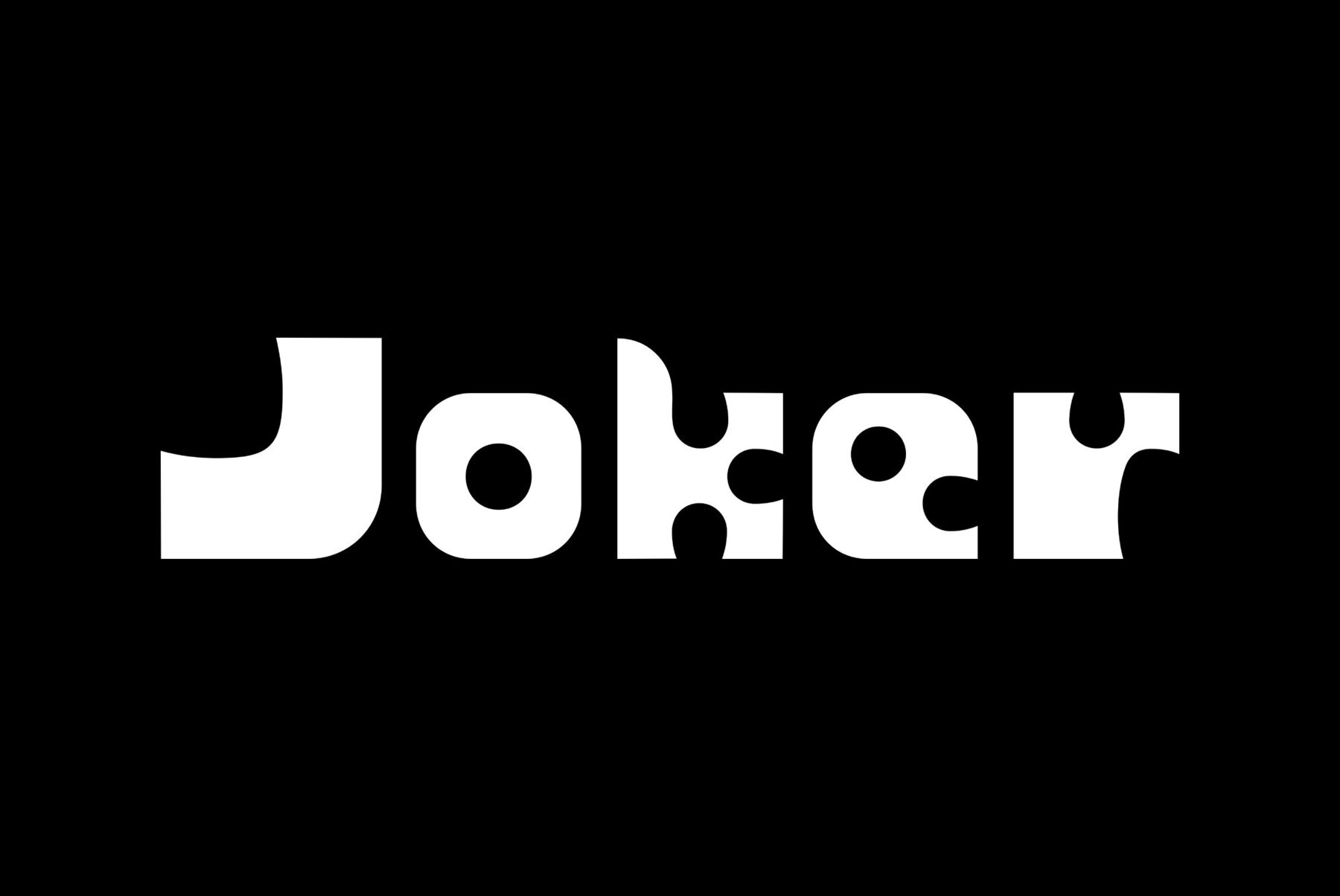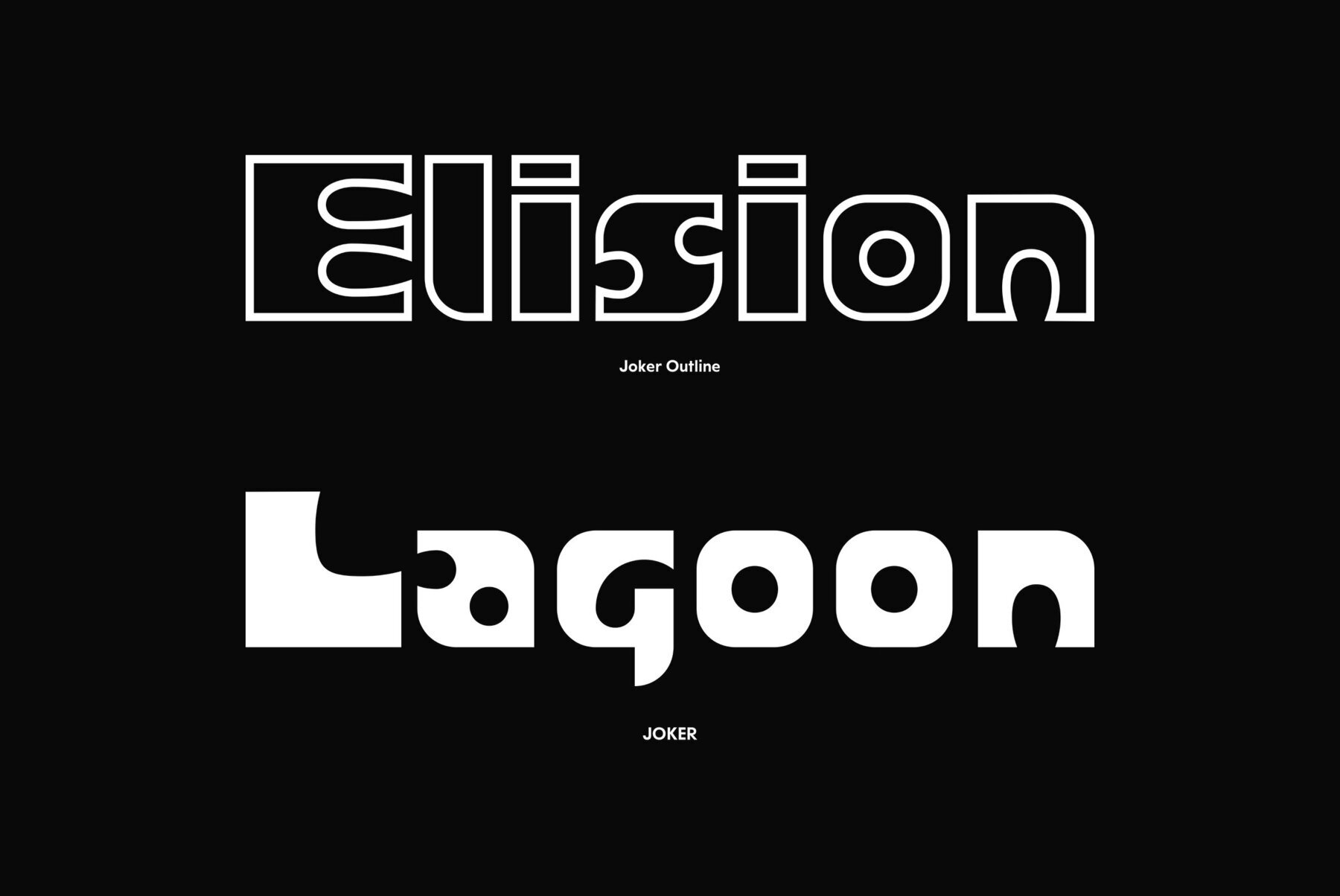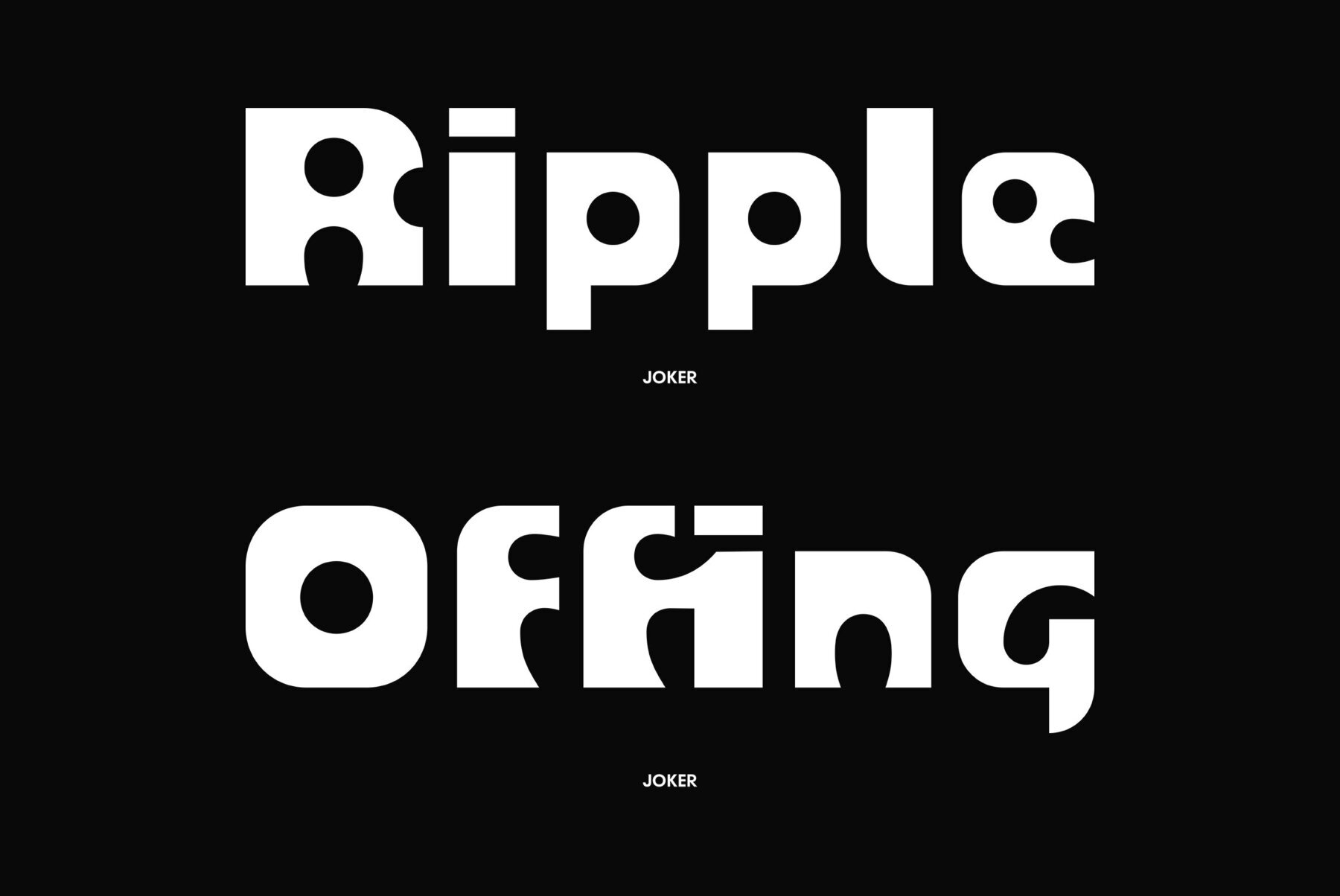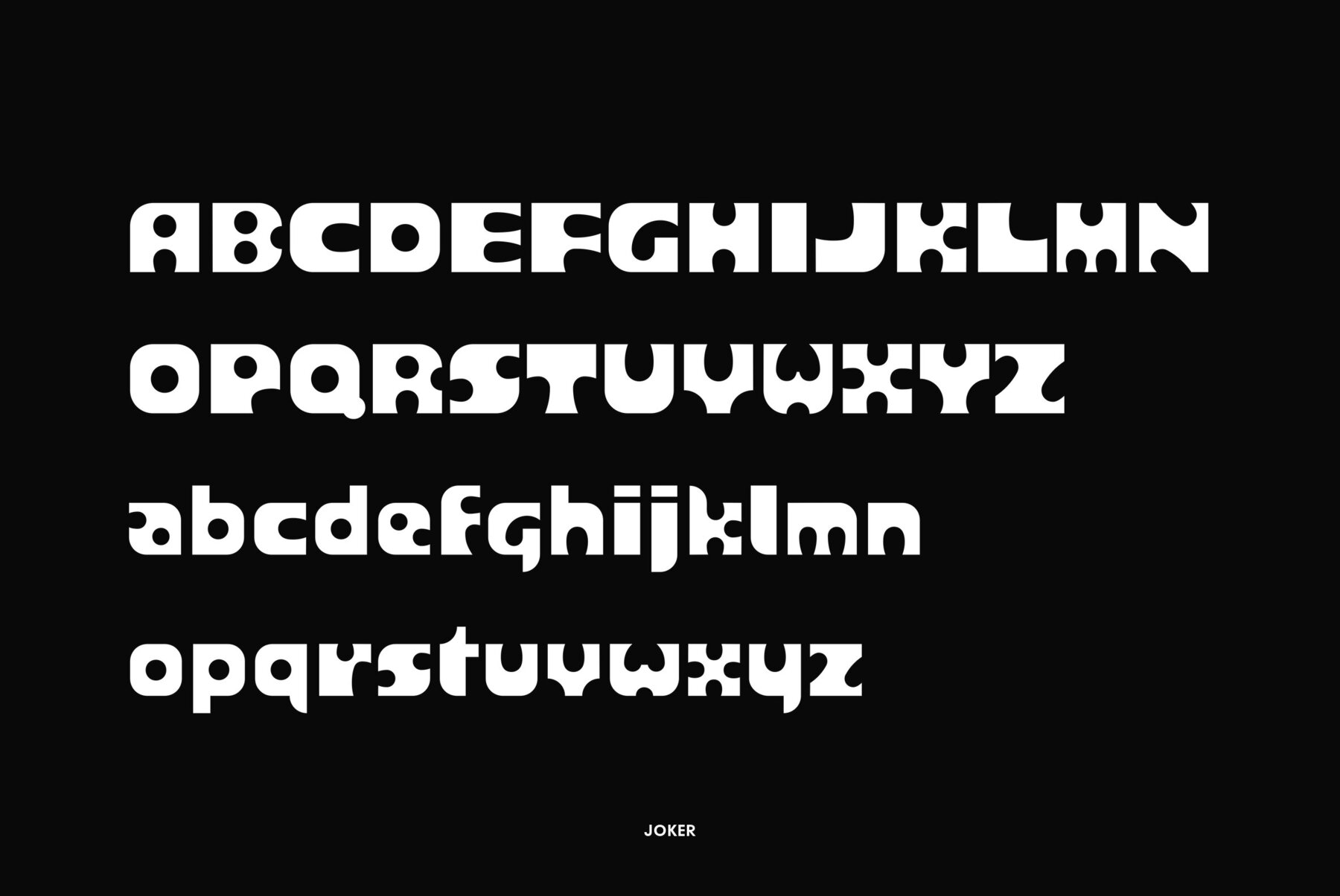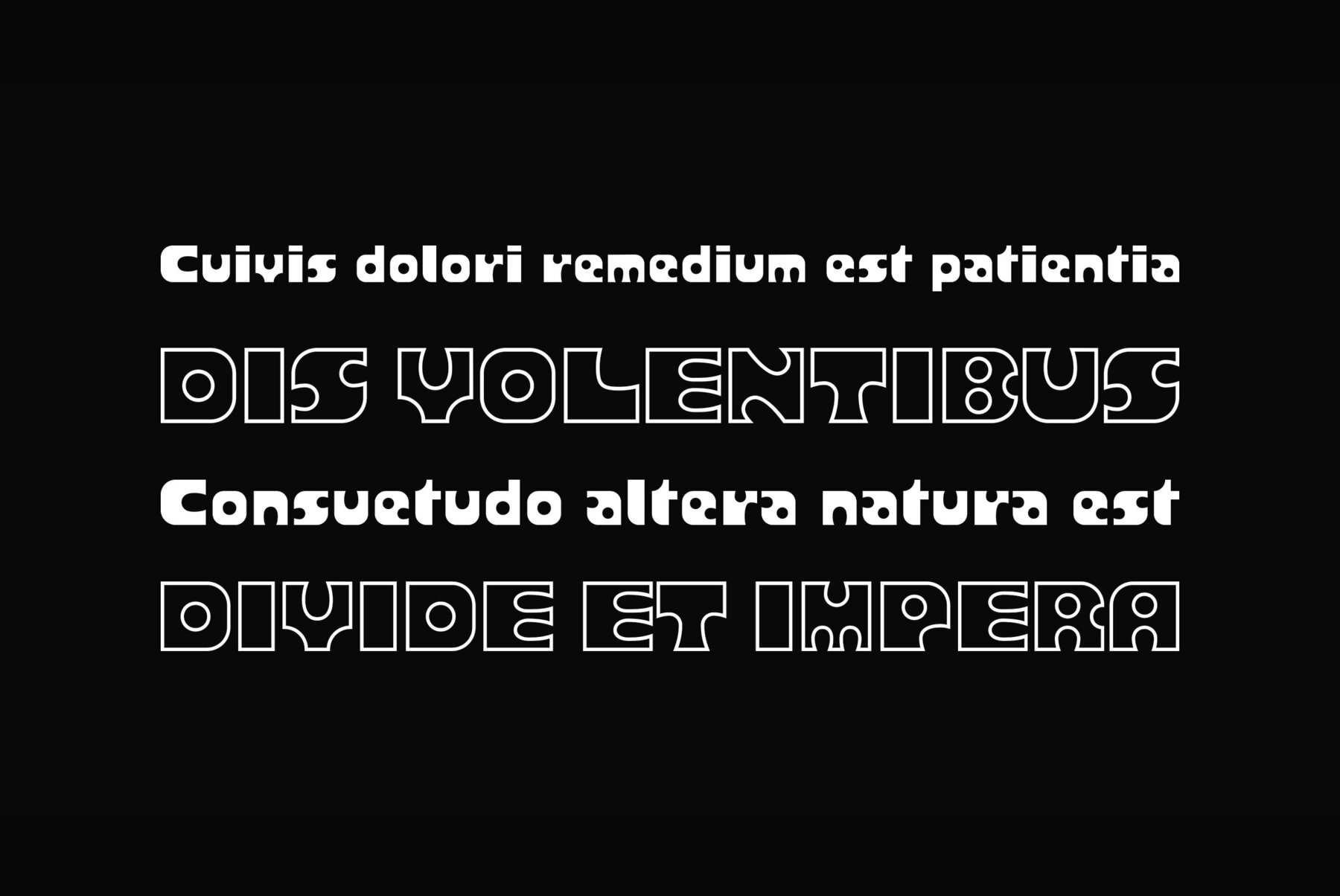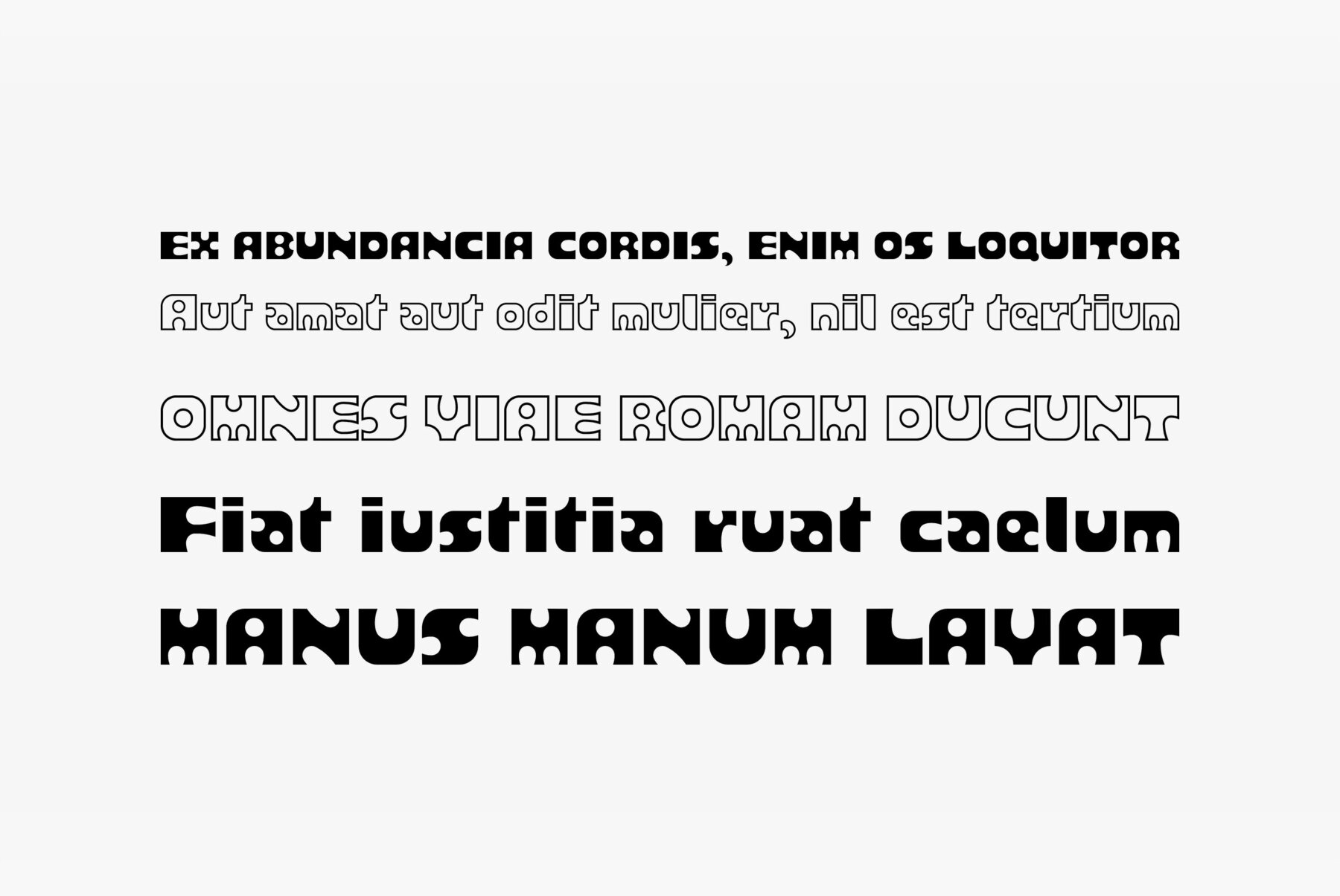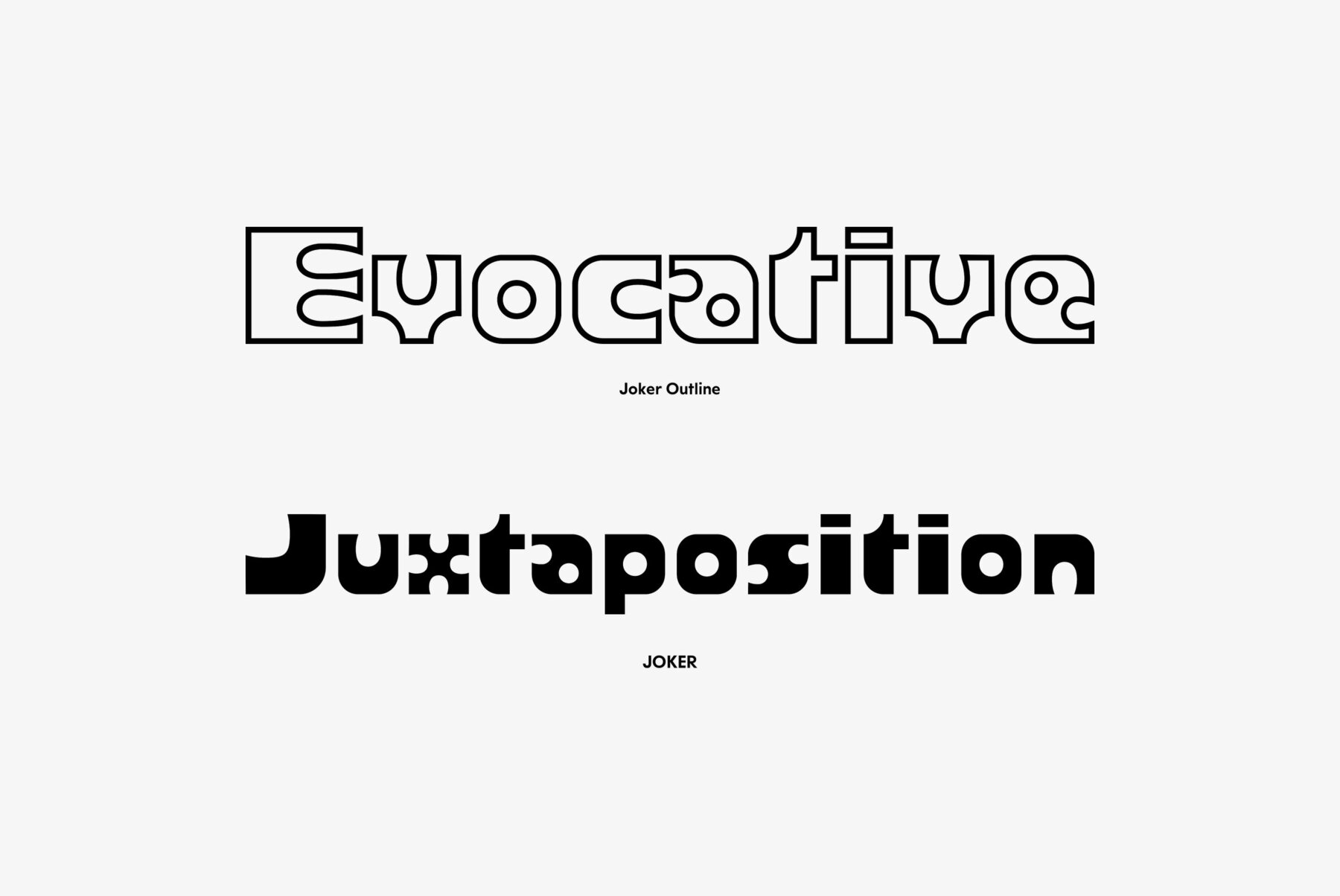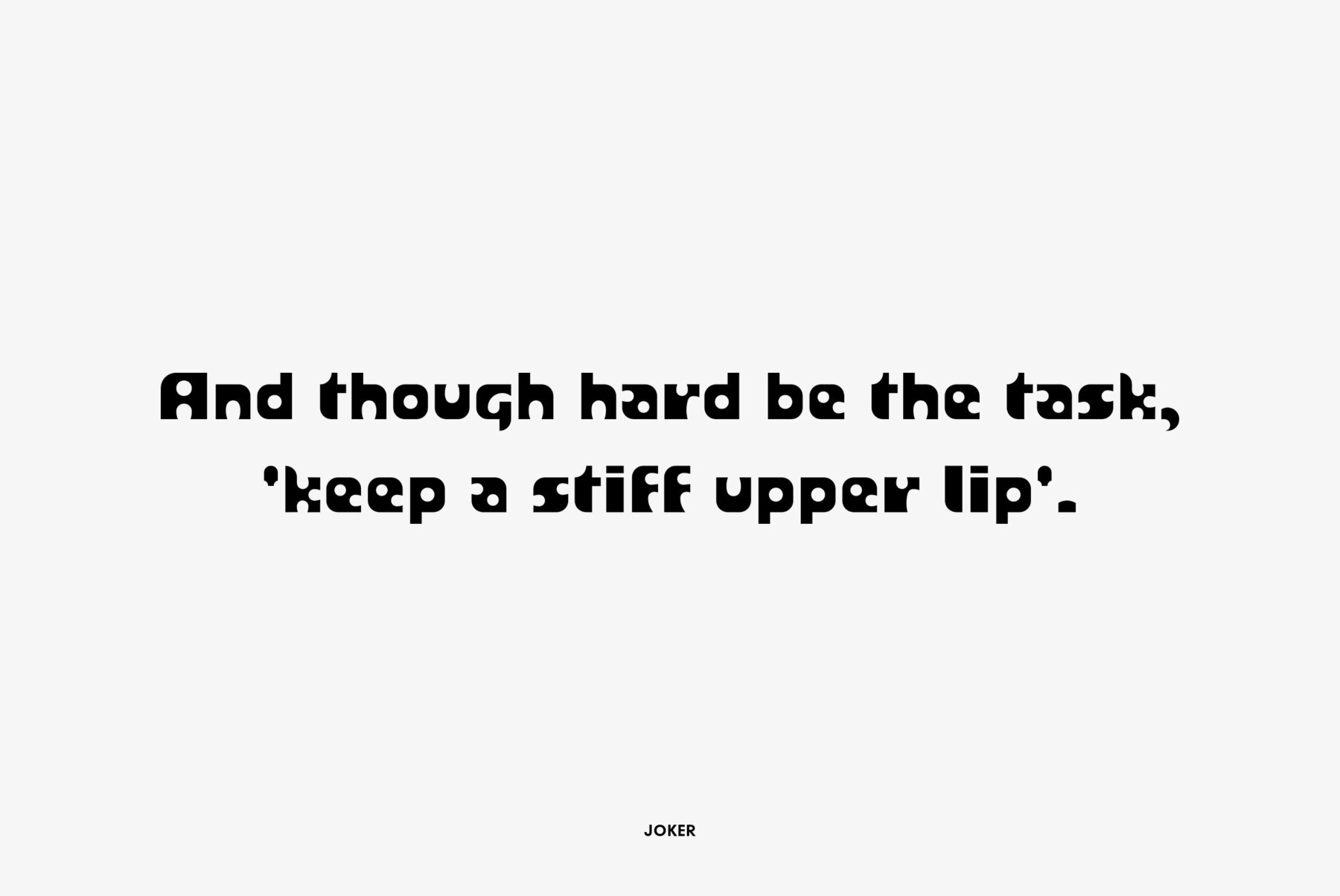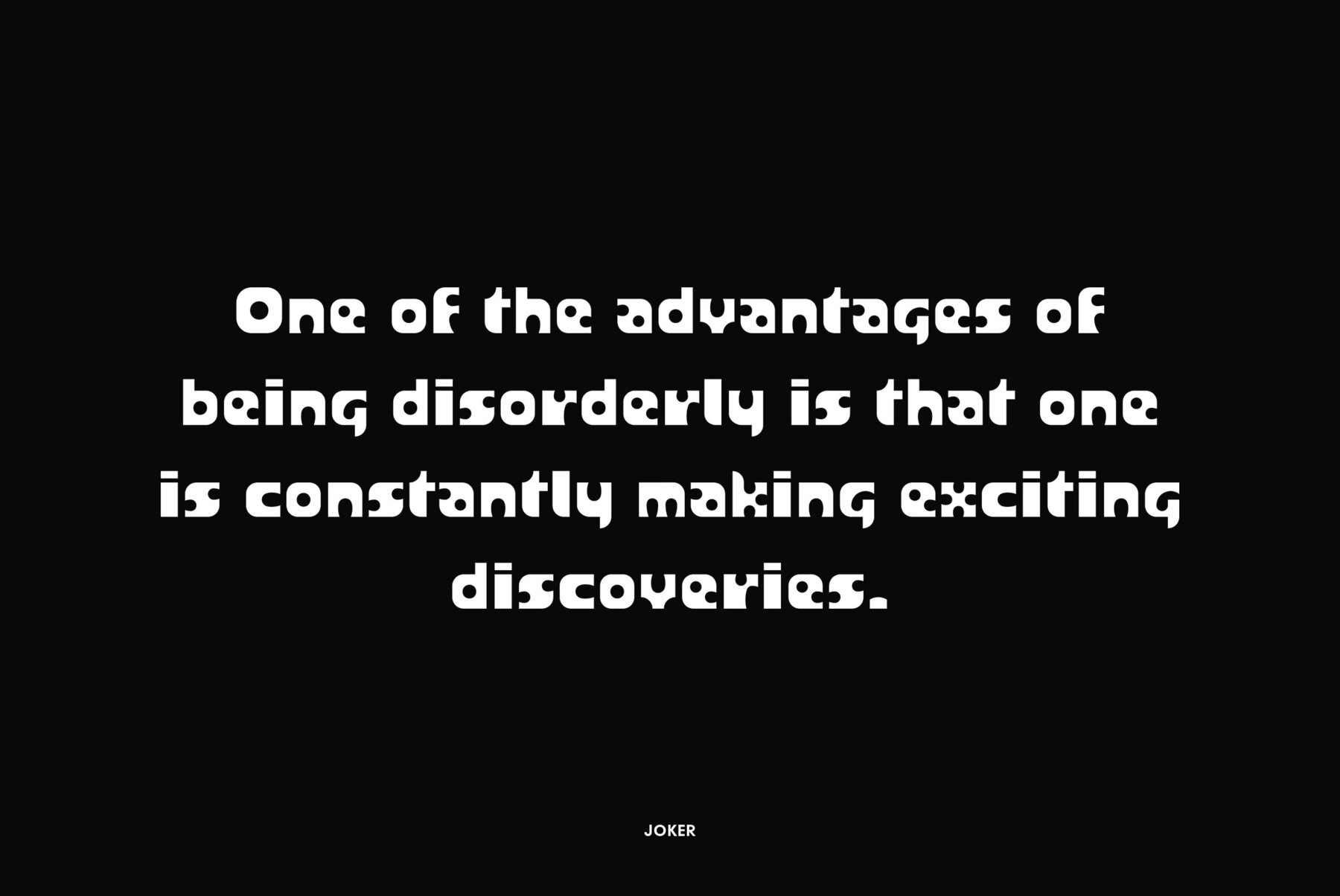
The sketch of Joker has been drawn by Viktor Kharyk in 1978 as experiment on creation type by a method of subtraction. In 2000 the font has been digitized, modified and added by a Hebrew, Greek, Georgian, Armenian and Arabi? alphabets and outline style. As the display face Joker allows create decorative compositions, easily combining a vertical and horizontal arrangement of words. Its characters are easy for filling with images. In line the face creates ornamental effect very appropriate for logotype design. The font is good to set small expressive advertising texts also. Joker type family has received 3-rd premium at TypeArt 2001 Cyrillic type design competition in Moscow. Licensed by ParaType in 2005.